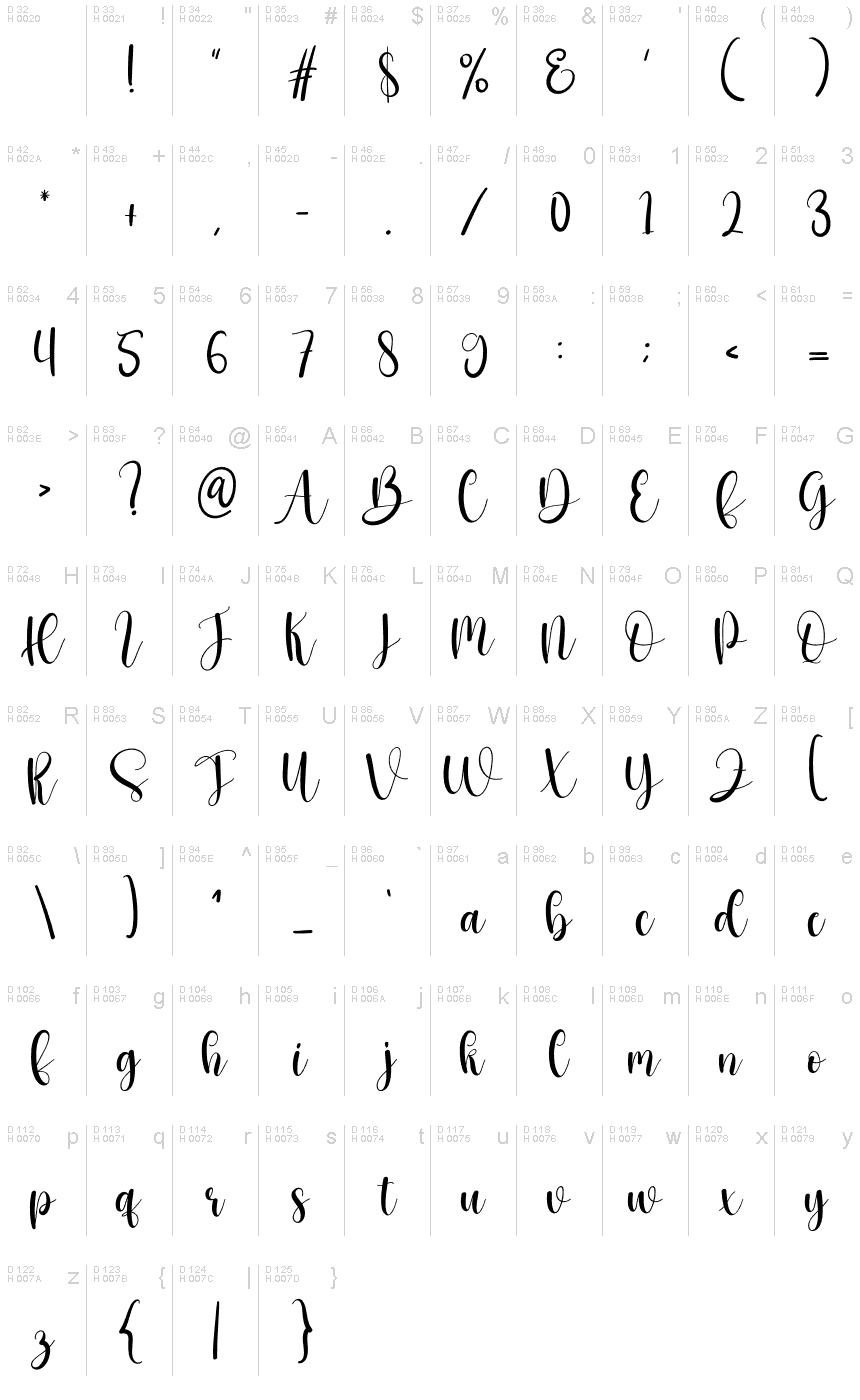
Black Signature
Black Signature by scratchones is a stunning calligraphy font that exudes elegance and sophistication. Its semi-light weight adds a touch of delicacy to the strokes, making it perfect for projects that require a refined touch. Use it to add a touch of class to wedding invitations, luxury branding, or high-end fashion magazines. With its flowing curves and graceful lines, Black Signature will make any project stand out from the crowd. Let this semi-light typeface elevate your design game and leave an impactful impression on your audience.
the latest style letters are perfect for wall displays, wedding invitations, social media post logos, advertisements, product packaging, product designs, labels, photography, watermarks, invitations, stationery, and any project that requires taste handwriting.